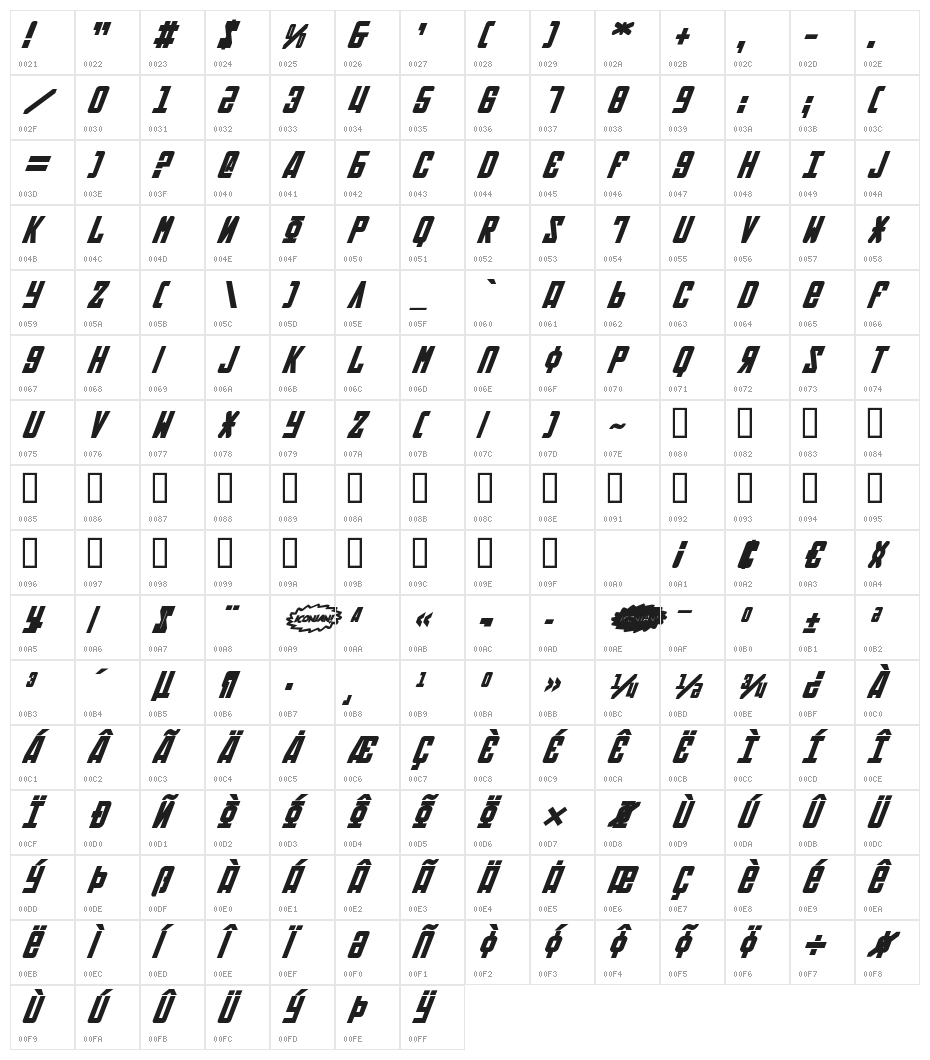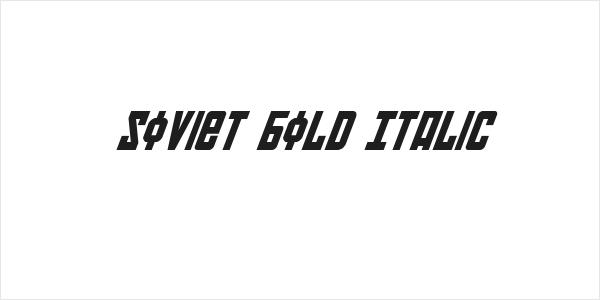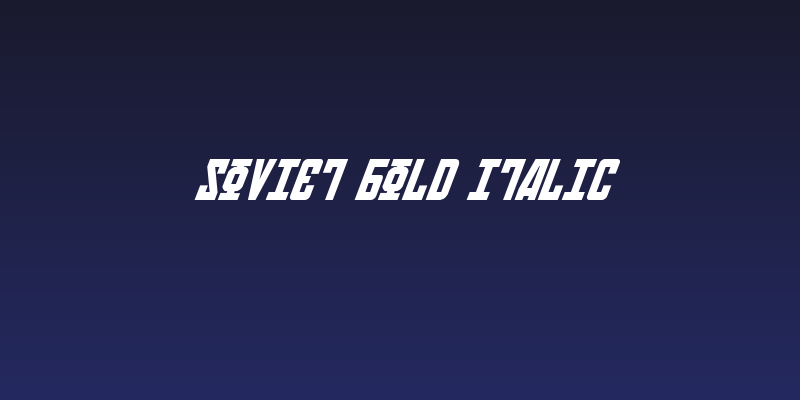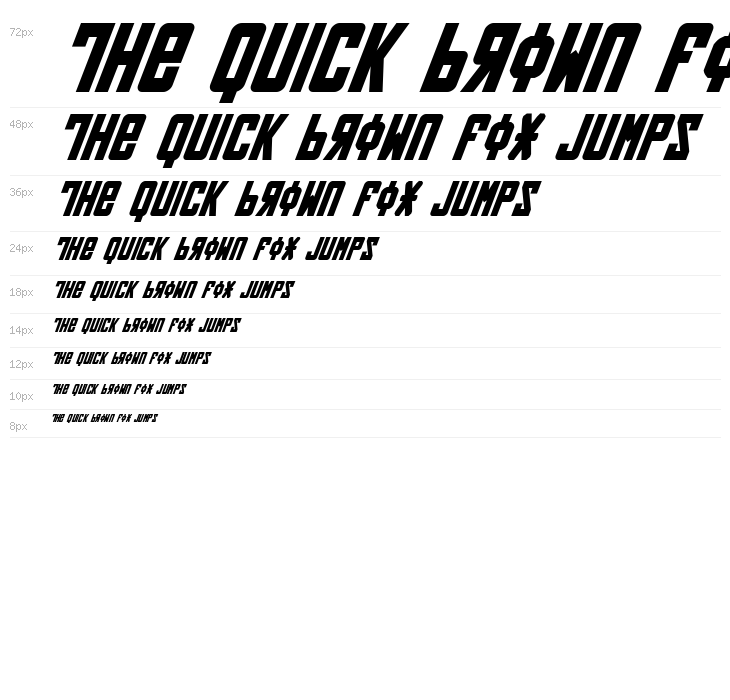
Soviet Bold Italic Font
Soviet Bold Italic Description
This font exhibits a bold and italicized style with a distinct geometric and angular design. The characters are sharply defined, with a strong emphasis on diagonal lines, creating a dynamic and energetic appearance. The uppercase and lowercase letters maintain a consistent slant, enhancing the italic effect. The numerals and special characters follow the same stylistic approach, ensuring uniformity across all glyphs. The font's boldness is evident in its thick strokes, which contribute to its commanding presence. The overall design is reminiscent of retro and industrial aesthetics, making it suitable for projects that require a strong visual impact.
| Overall Style | Retro, Industrial |
| Proposed Projects | Ideal for posters, branding, and editorial design where a bold, retro-industrial look is desired. |